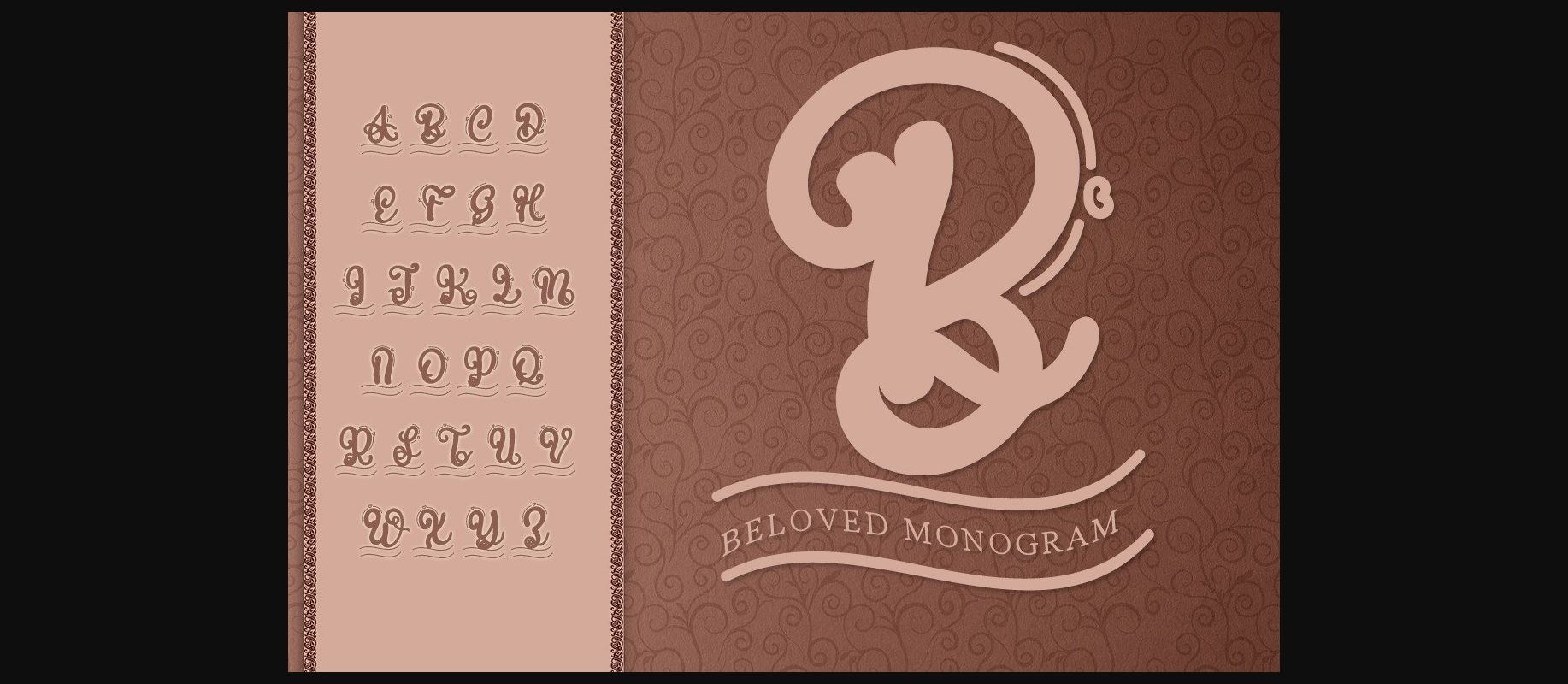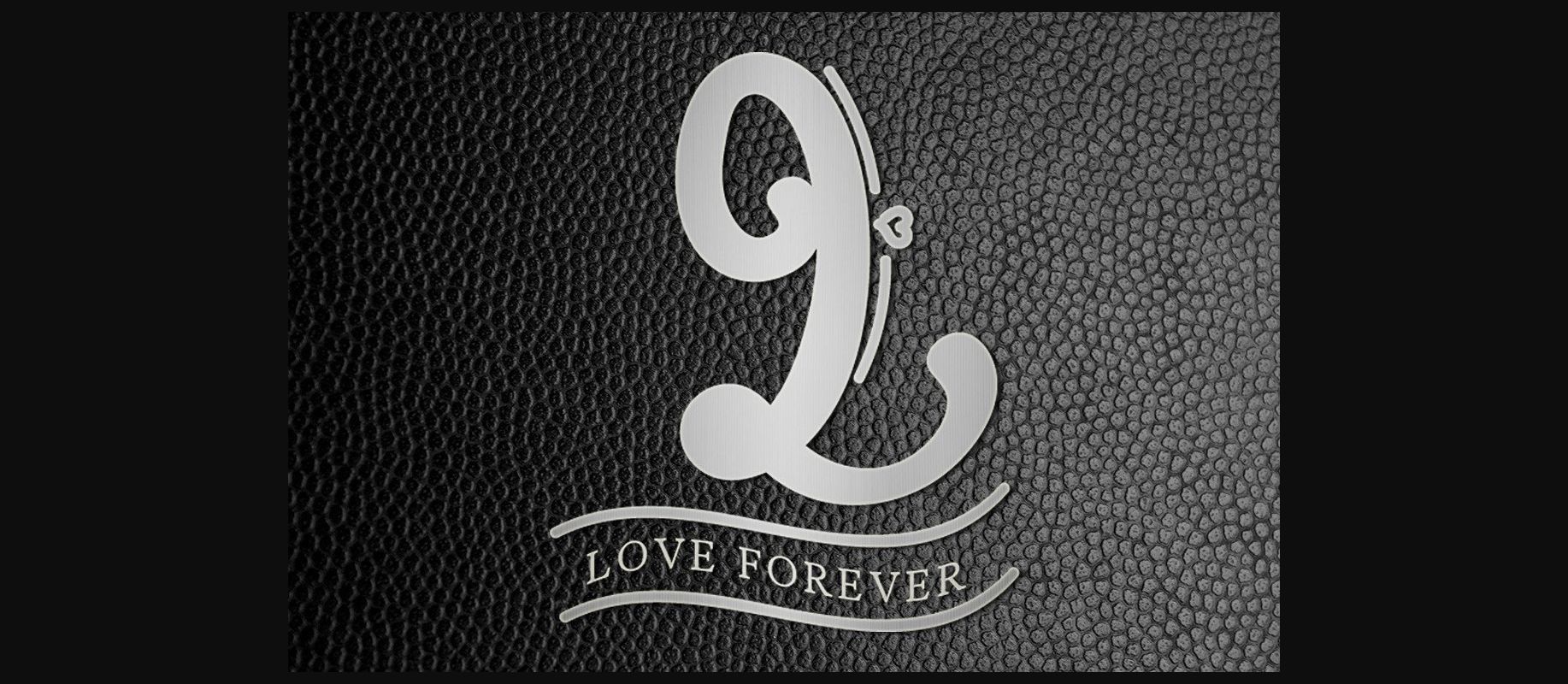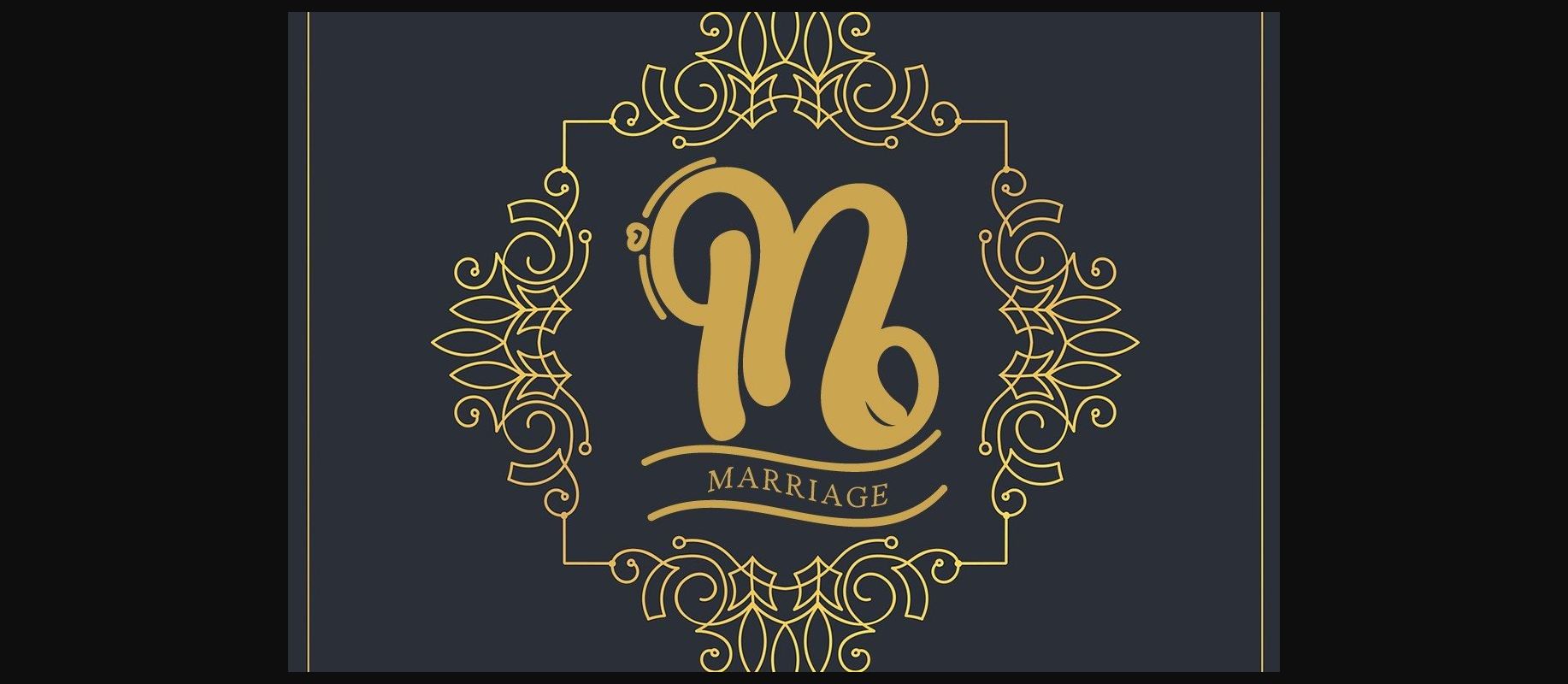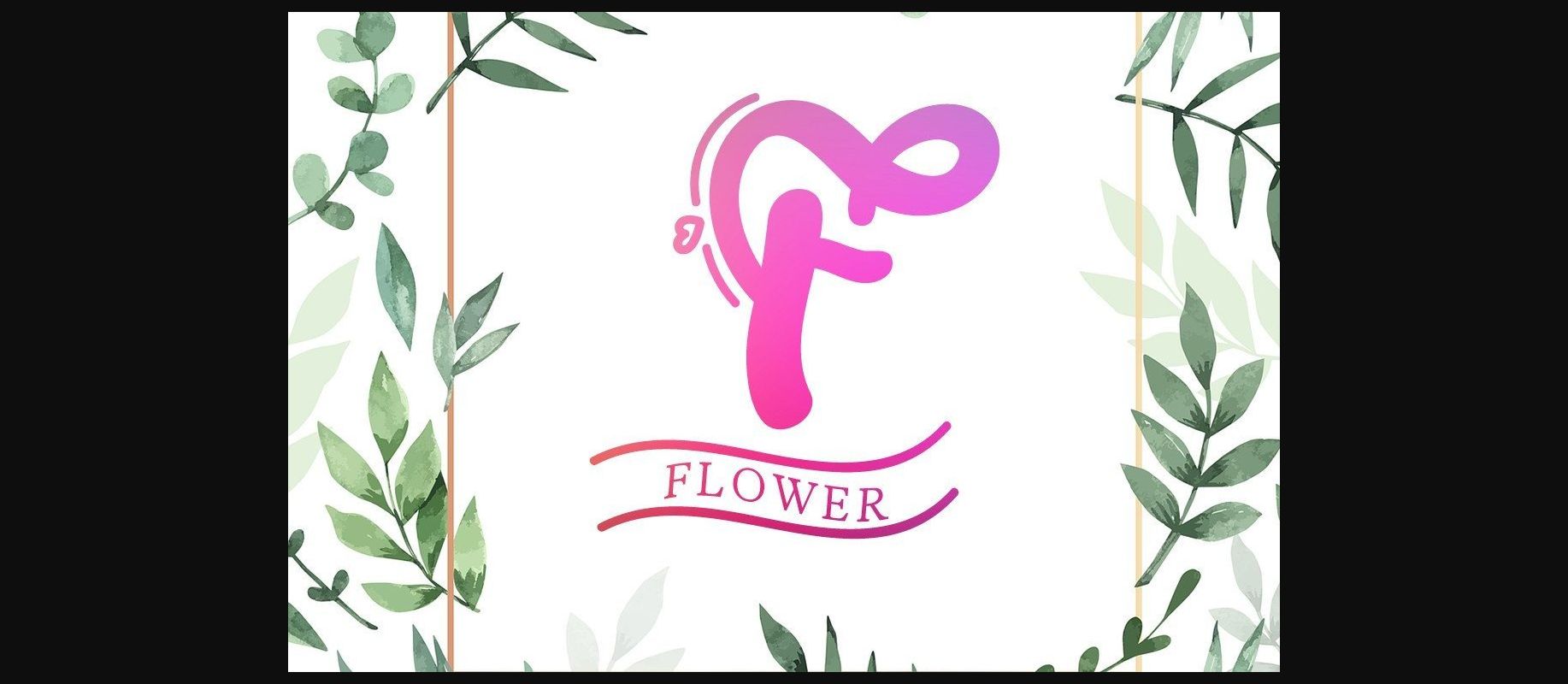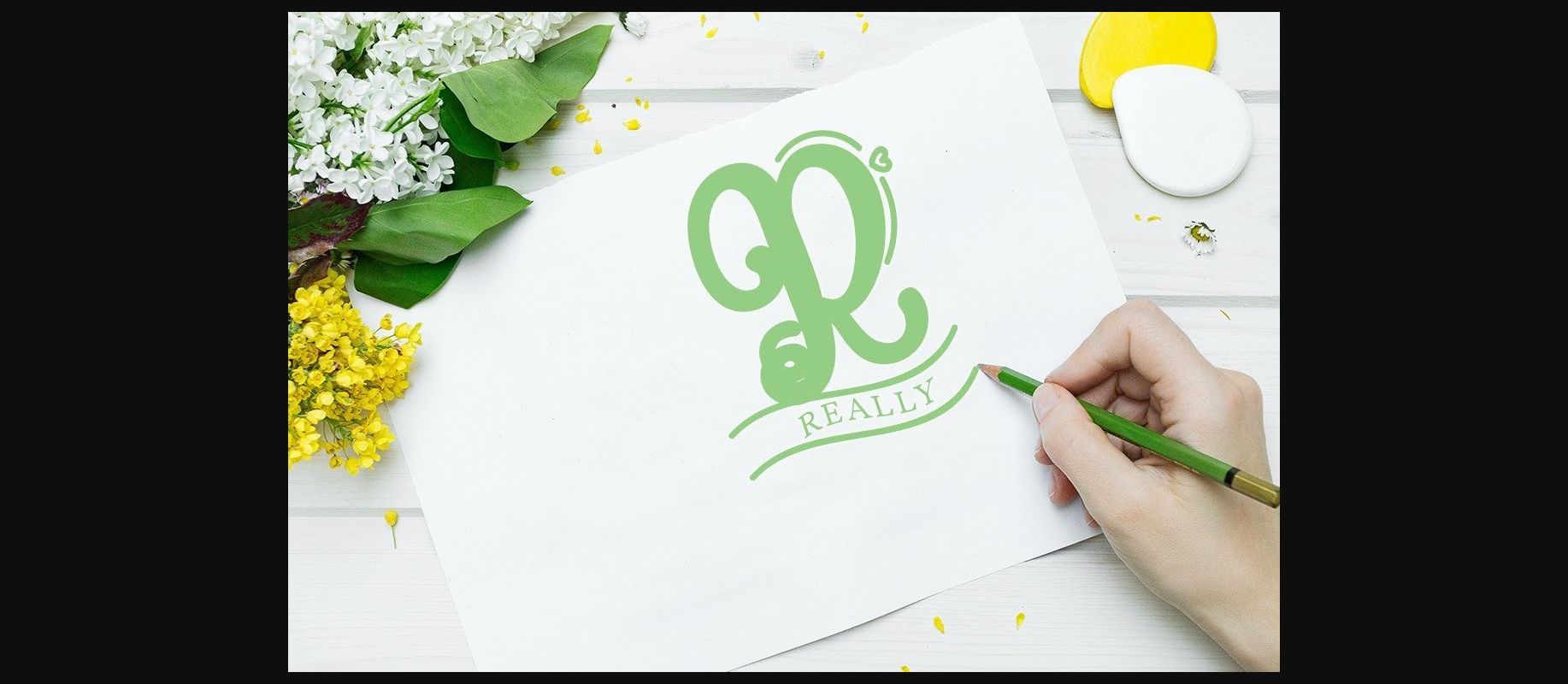
Beloved Monogram Font
About Beloved Monogram Font
Beloved Monogram is a beautiful and sweet font. It is fresh, clean, and elegant. This font will look amazing in a great amount of projects, both formal and informal.It will add an incredibly joyful touch to your designs.Fonts designed to simplify your design. By using this font, your business will look more beautiful